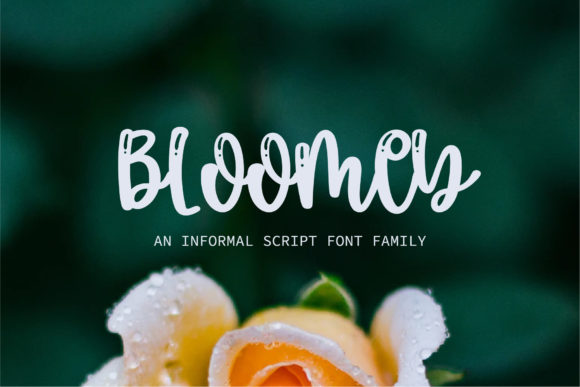
Prepare yourself to be swept away by Bloomey, a captivating handwritten font that radiates charm and personality. With its playful strokes and whimsical curves, Bloomey is bound to bring a touch of delight to your creative endeavors. Whether you're designing wedding invitations, crafting heartfelt letters, or creating social media graphics, Bloomey will effortlessly elevate your designs, leaving a lasting impression.
Immerse yourself in the magic of Bloomey's versatile script, meticulously crafted to add a personal touch to your creations. Its enchanting style, reminiscent of handwritten notes, evokes a sense of warmth and authenticity. Whether you're a seasoned designer or just starting your creative journey, Bloomey is your perfect companion, ready to transform your ideas into stunning realities.
Picture the joy on your recipient's face as they receive an invitation adorned with Bloomey's elegant swirls. Its graceful characters will perfectly capture the essence of your special occasion, setting the tone for an unforgettable event. Let Bloomey's charm shine through your wedding envelopes, adding a touch of sophistication and romance.
Unlock the endless possibilities with Bloomey. Its versatility knows no bounds, seamlessly adapting to a myriad of creative projects. Design captivating posters that come alive with Bloomey's playful spirit, or create eye-catching logos that exude a handcrafted charm. With Bloomey as your creative ally, you'll discover a world of design possibilities, limited only by your imagination.
At the heart of Bloomey lies the passion of BitongType, a renowned font creator dedicated to crafting exquisite digital masterpieces. Each stroke, each curve, each detail is meticulously designed to ensure that Bloomey stands out as a work of art. Trust in the expertise of BitongType to bring you a font that not only meets your expectations but surpasses them, leaving you with a font that will inspire and delight for years to come.
Don't let this opportunity pass you by. Embrace the allure of Bloomey and embark on a creative journey like no other. Let its whimsical spirit enhance your designs, adding a touch of magic to every project you undertake. Bloomey is more than just a font; it's an invitation to unleash your creativity and create designs that captivate and inspire.